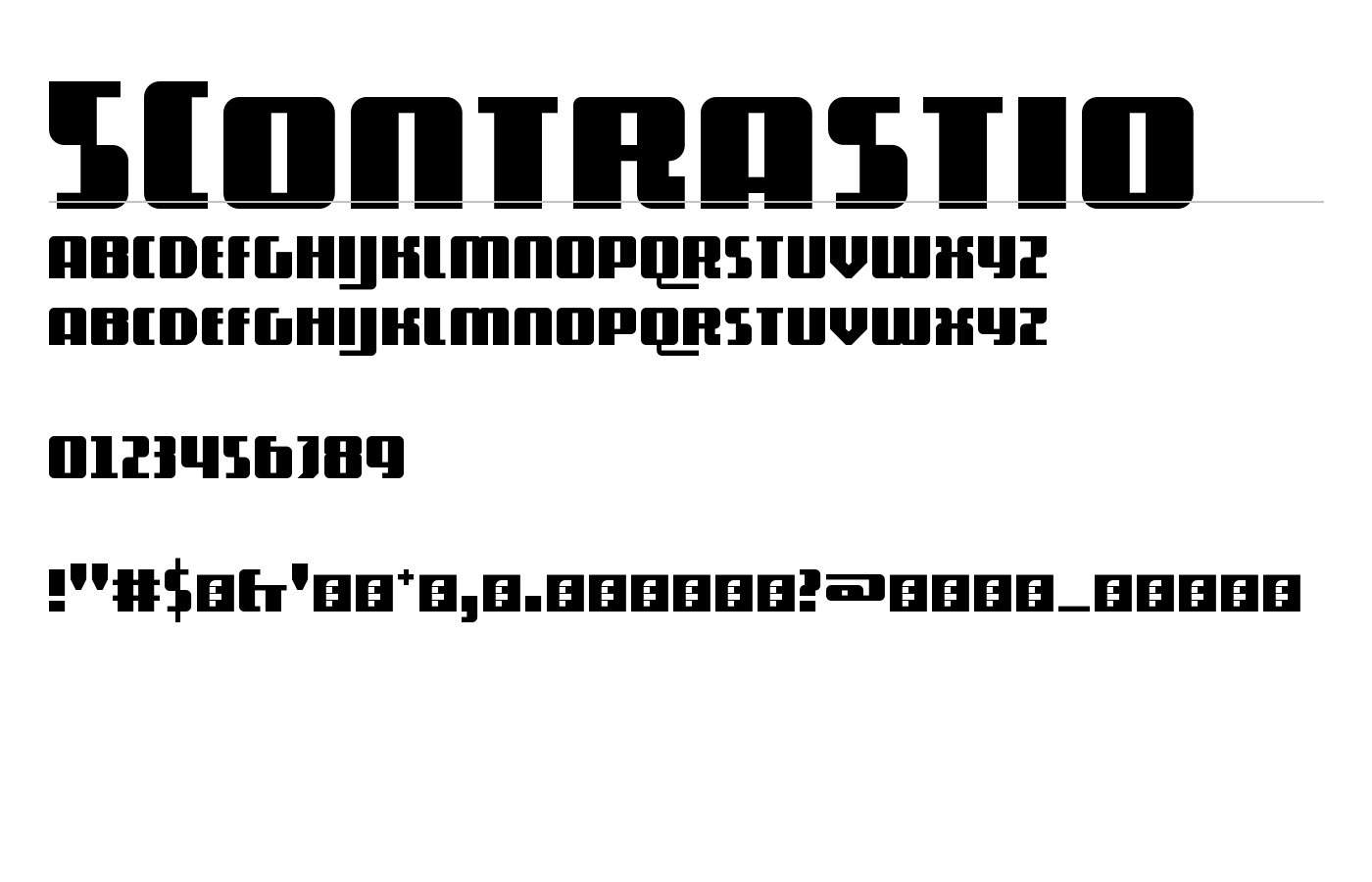
5Contrastio is a bold, condensed sans serif font with a strong, geometric structure and high stroke contrast, creating a striking and modern look. Its uppercase design features unique, blocky letterforms with square terminals and a narrow width, making it ideal for impactful headlines and display use. This font works well for branding, posters, and editorial projects where a bold, futuristic, and attention-grabbing style is needed.
5Contrastio Font
About 5Contrastio Font